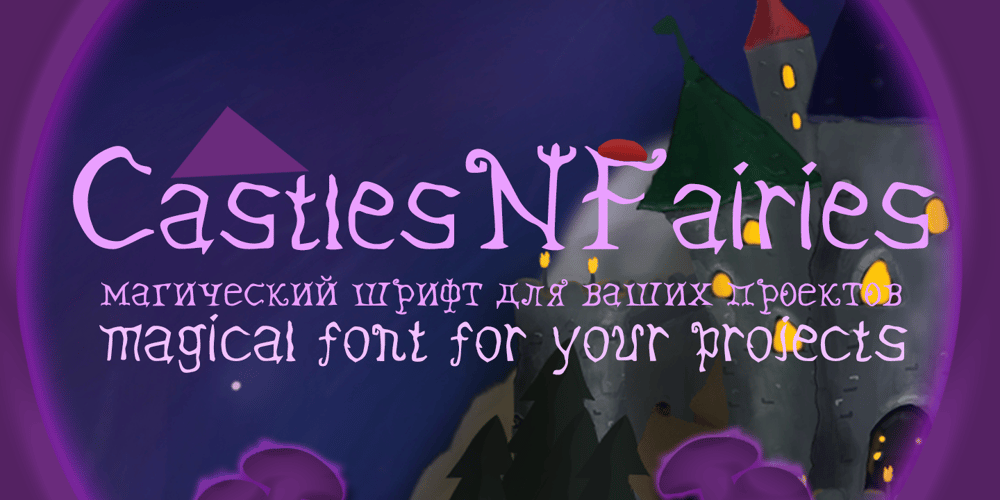
CastlesNFairies Font Family was designed by Albert Arzumanyan and published by PIXLmeister. CastlesNFairies contains 1 styles and family package options. If you need a fantasy font that will brighten up your book about Drakula or your game about Tricksters or other fantasy characters or your movie needs magic then this font is for you. Any time if you need magic, the font is for you!